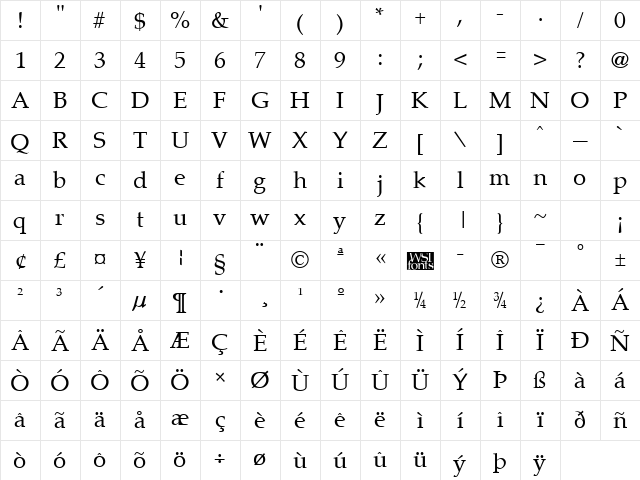
Palisade Regular Free Font
Palisade Regular
Complete Palisade Regular glyph index. Displaying only characters natively supported by Palisade Regular font.
Design Context for Palisade
Palisade is a composed and adaptable typeface that performs quietly and consistently across a wide range of design contexts.